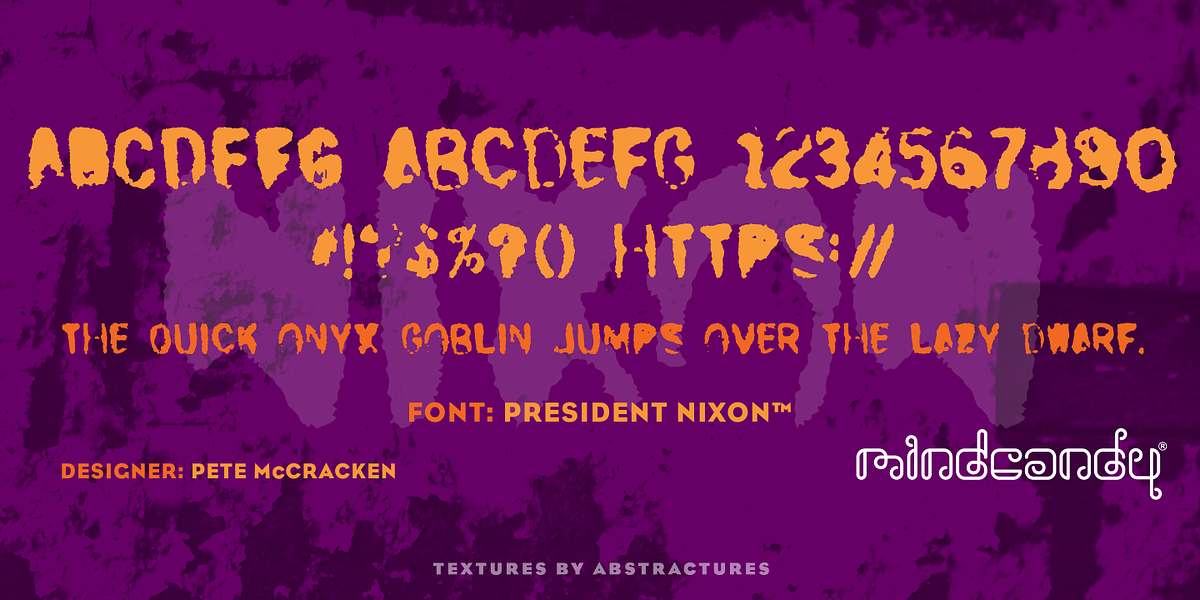
President Nixon™
This grunge dingbat font, designed by Pete McCracken in 1994, is intended for all-caps display use. It features a rough and textured aesthetic, making it suitable for headlines and posters that aim for a gritty or industrial feel.